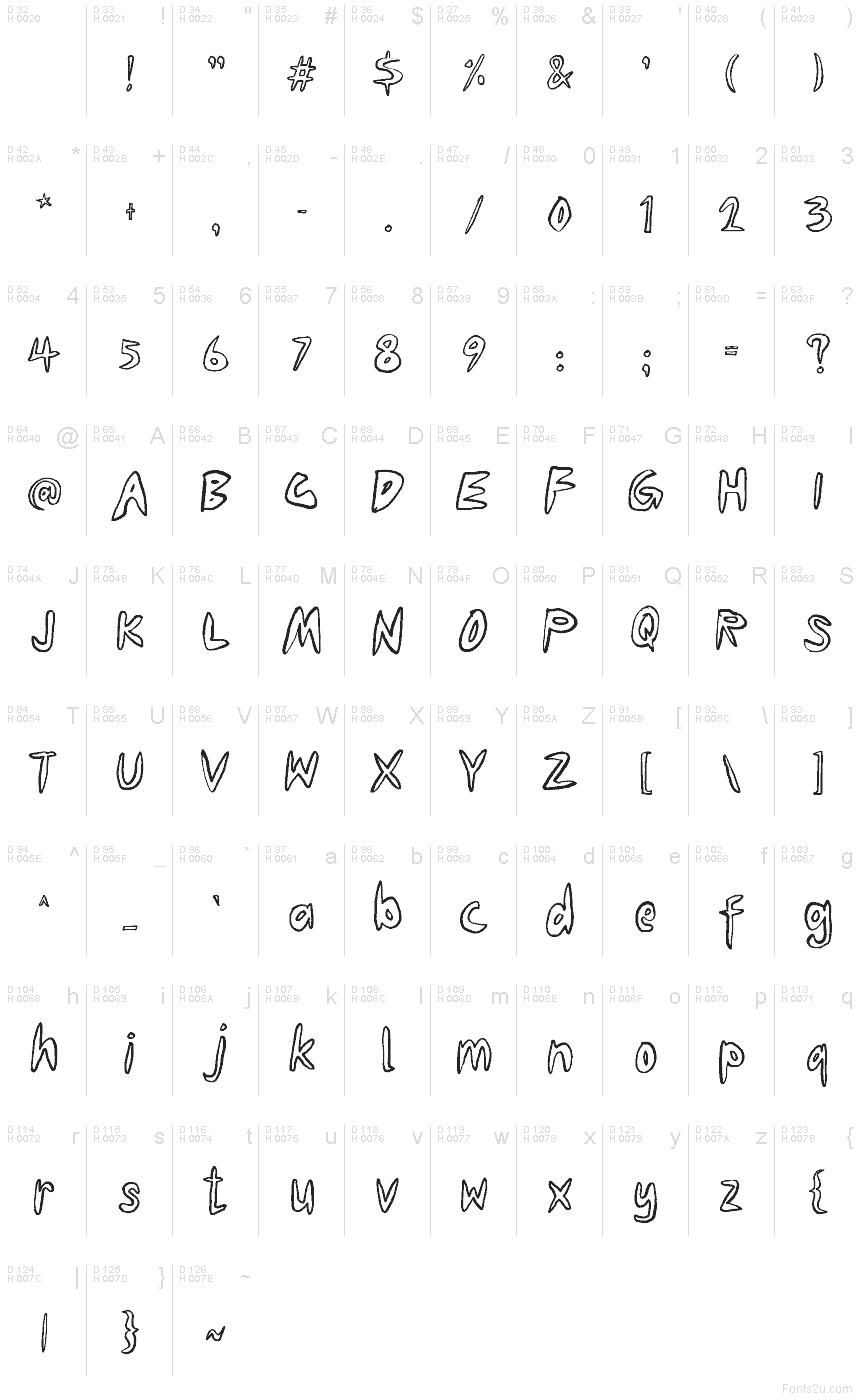
Brunine Regular
Brunine font by Holisfonts.com is a free brush display font. It stands out with airy, hand-drawn outlines that wobble just enough to feel human—squishy loops, inky edges, and playful dots that ride along the strokes. The letters breathe with roomy counters, so headlines feel bold without the heavy fill, giving you impact with a light, friendly touch.
Using Brunine, your titles snap to attention on kids’ packaging, craft labels, birthday invites, snack branding, social posts, and classroom posters. The rhythm is loose but legible, making this free font shine on anything that needs warmth and whimsy. Pair it with a clean, rounded sans for body text and keep Brunine big to let those outlined strokes sing.